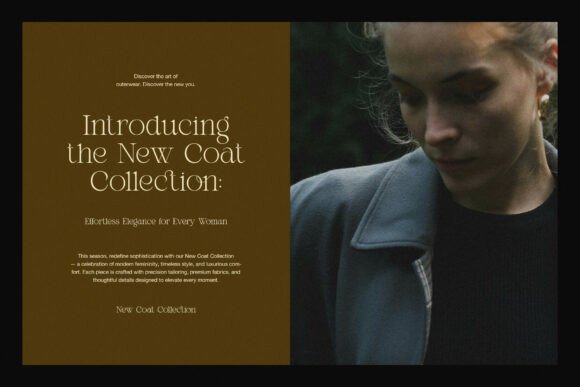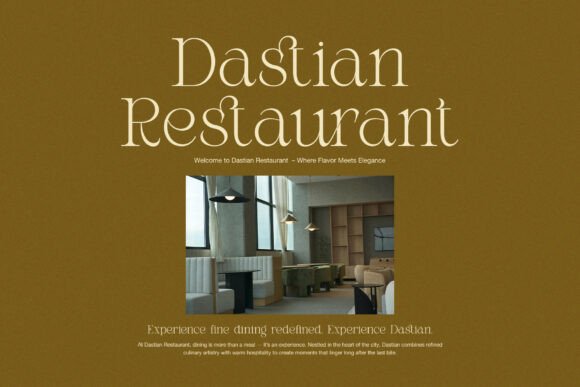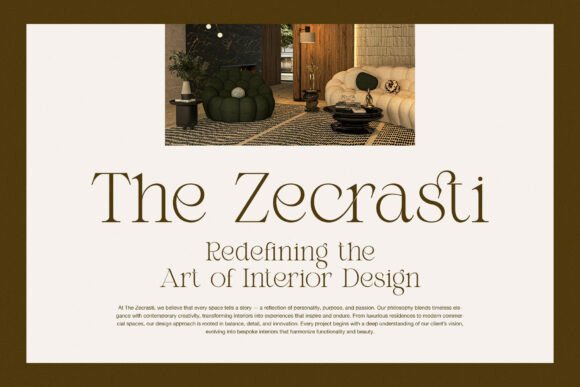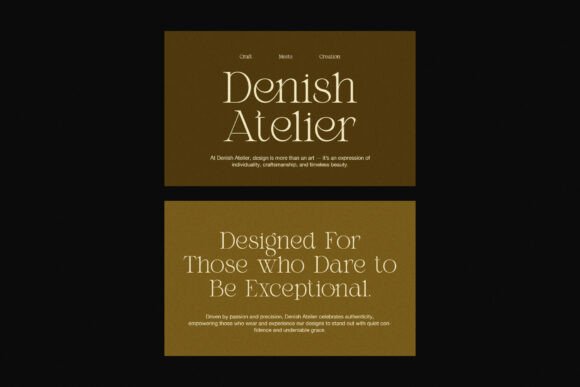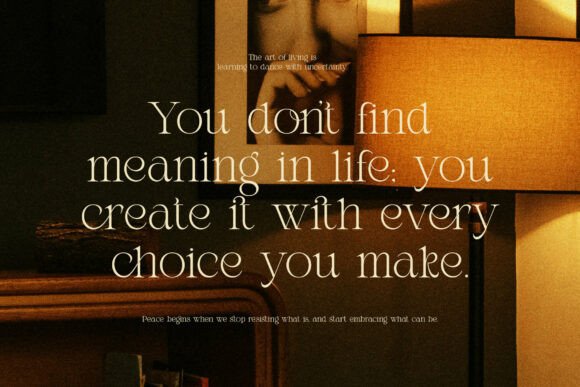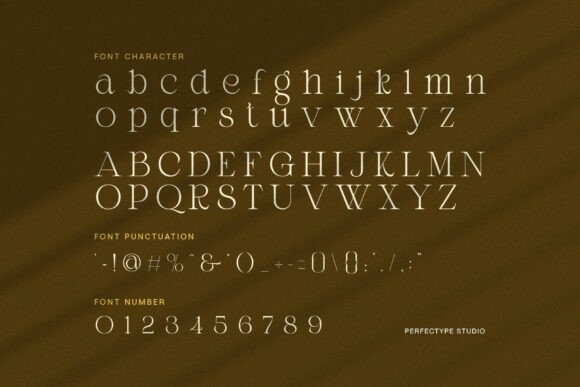
Introduction to Riukan Font Font
Fonts play a crucial role in design, and the Riukan Font font is a typeface that brings both character and versatility to any project. Whether you’re working on a branding project, a website, or a print design, the Riukan Font font offers a unique style that can elevate your work.
Riukan is a modern elegant serif font that blends timeless charm with refined modern beauty.
It was designed for creators who seek sophistication, balance, and a sense of warmth in every design Because of its graceful curves and elegant contrast, Riukan feels both classic and contemporary at once.
Key Features of Riukan Font Font
Why Choose Riukan Font Font?
The Riukan Font font is more than just a typeface – it’s a design tool that helps you communicate your message with style and clarity. Its unique character set and versatile design make it suitable for a wide range of applications, from elegant invitations to bold headlines.
With its carefully crafted letterforms and balanced proportions, the Riukan Font font ensures readability and visual appeal across all mediums.
What makes Riukan Font font special?
The Riukan Font font stands out with its unique design, exceptional readability, and versatility across various design applications.